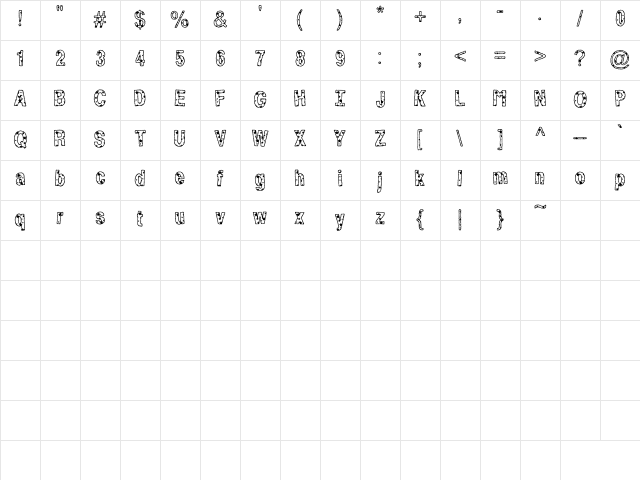
By Starlight Regular Free Font
By Starlight Regular
Foundry: Lauren C. Brown
Designer: Lauren C. Brown
Design Context for By Starlight
By Starlight is a composed and adaptable typeface that performs quietly and consistently across a wide range of design contexts. Its slender proportions lend an understated elegance to any composition.
Who designed the By Starlight Regular font?